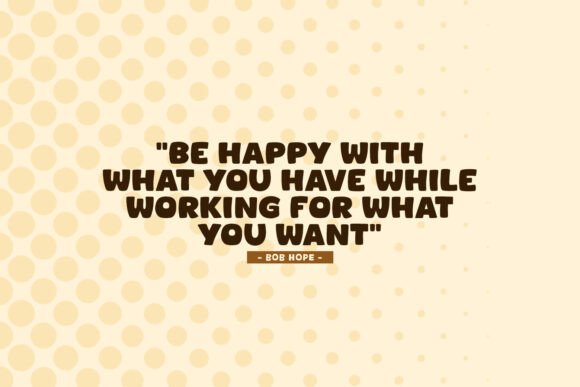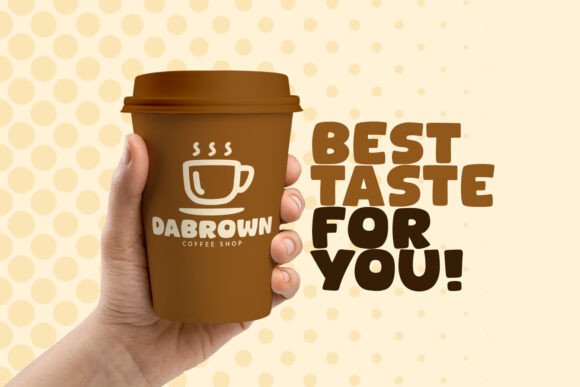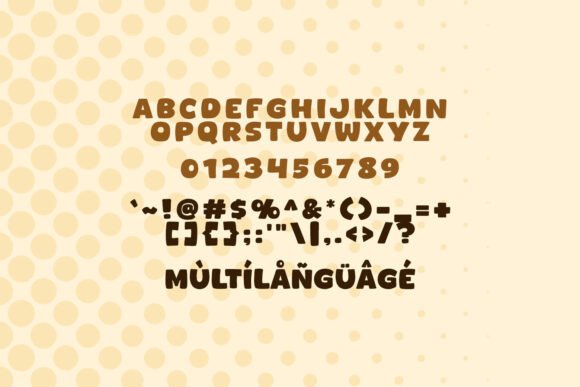
The Ultimate Guide to Besty Beige Font: Elevate Your Designs with this Modern and Cute Display Font
Ah, the quest for the perfect font! I still remember the time I was working on a project for a client who wanted a poster design that screamed “chic” and “sophisticated.” I had spent hours browsing through font libraries, but nothing seemed quite right. That was until I stumbled upon Besty Beige, a modern and cute display font that instantly caught my attention. In this article, I’ll share my love for Besty Beige, its features, and how to make the most of it in your designs.
An Honest Review of Besty Beige
What I Love About Besty Beige
- ✨ Unique and eye-catching design: Besty Beige has a distinctive, hand-crafted feel that sets it apart from more traditional fonts.
- ✅ Highly versatile: This font is perfect for a wide range of projects, from posters and logos to magazines, book covers, and banners.
- 💡 Easy to read: Despite its unique design, Besty Beige remains clear and easy to read, even at smaller sizes.
While Besty Beige is an amazing font, there are a few things to keep in mind:
- 🤔 Limited use in body text: Due to its display nature, Besty Beige might not be the best choice for longer blocks of text.
- ⚠️ Requires careful kerning: As with any font, it’s essential to adjust the kerning to ensure the best possible results.
The Backstory of Besty Beige
Besty Beige was designed with the intention of creating a modern, yet approachable font. The designer aimed to craft a font that would be both elegant and playful, perfect for a wide range of creative projects. With its unique design and versatility, Besty Beige has quickly become a favorite among designers and crafters.
Q: What is Besty Beige font?
A: Besty Beige is a modern and cute display font, perfect for posters, logos, magazines, book covers, banners, and more.
Q: Is Besty Beige suitable for body text?
A: While Besty Beige is an amazing font, it’s primarily designed for display purposes. It might not be the best choice for longer blocks of text.